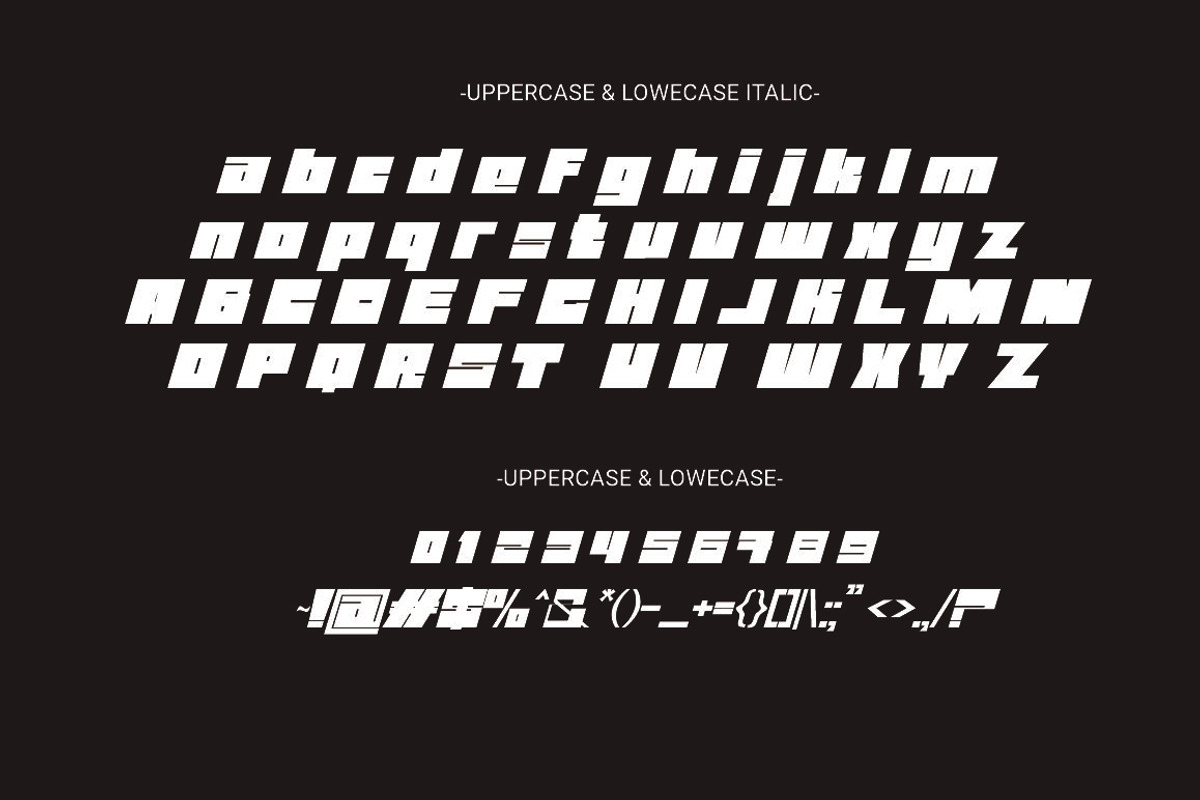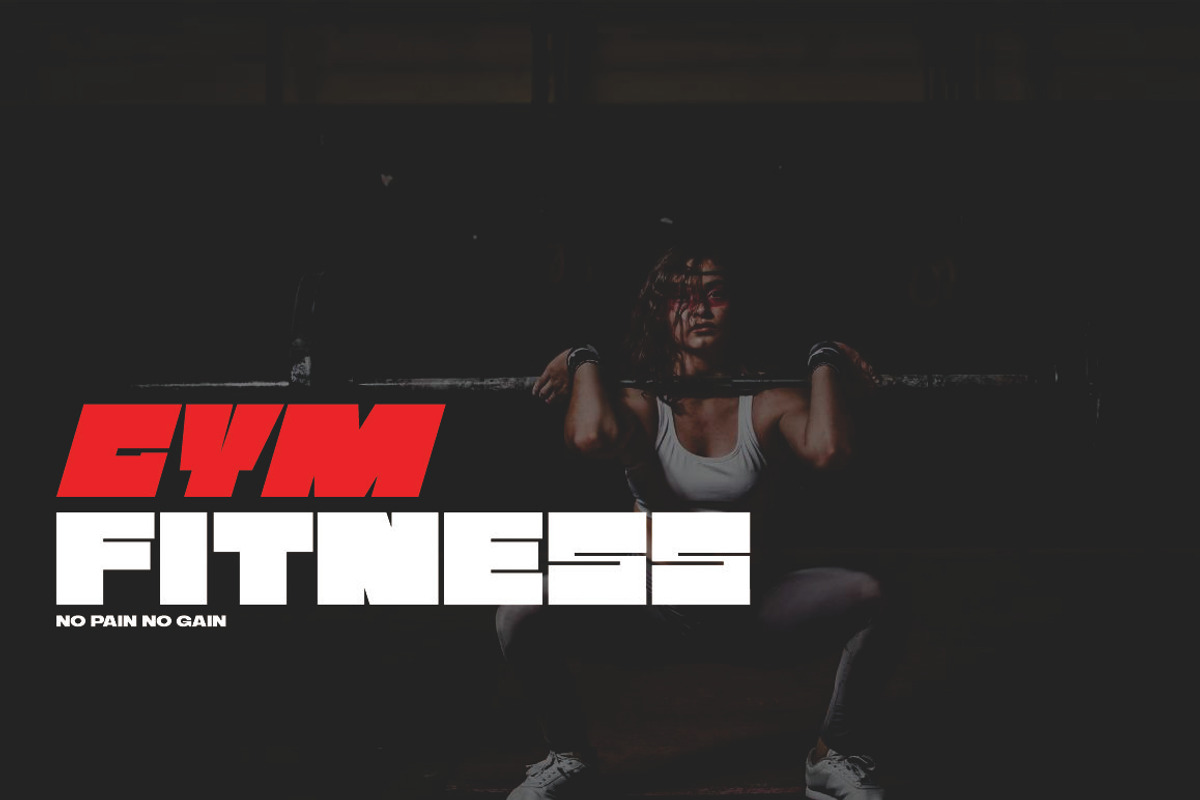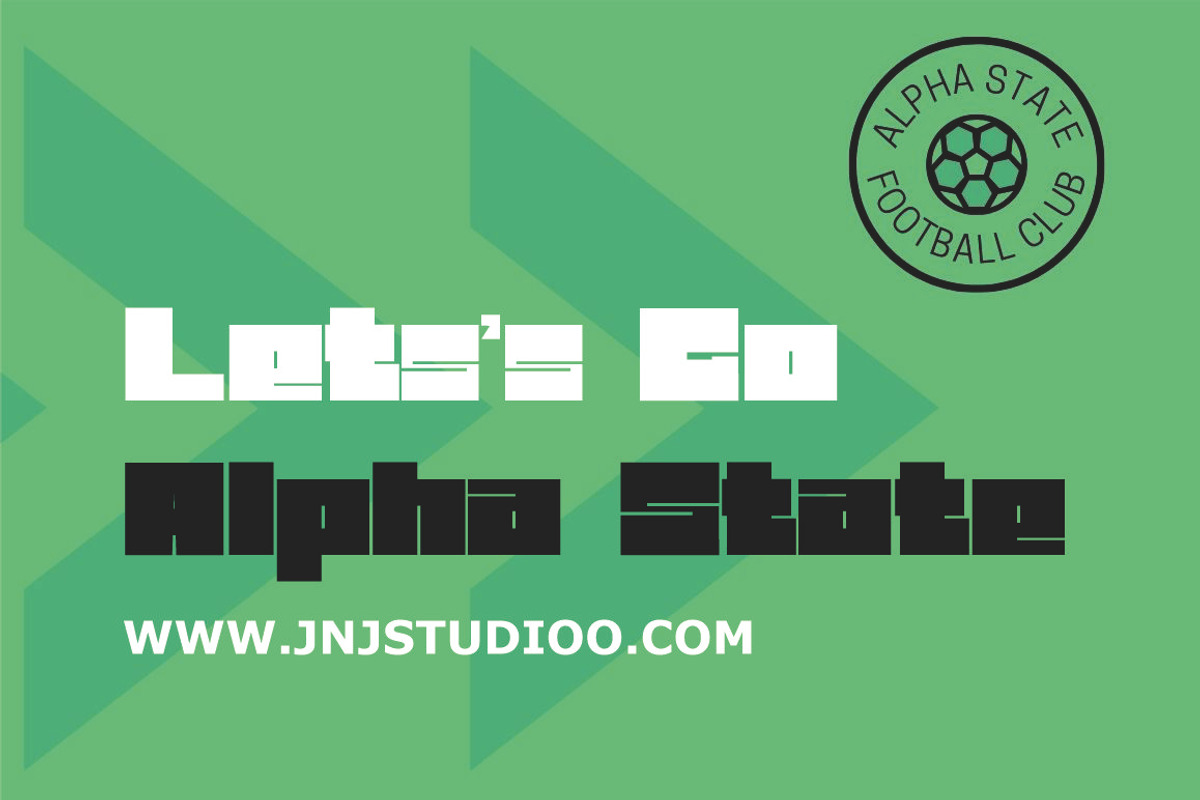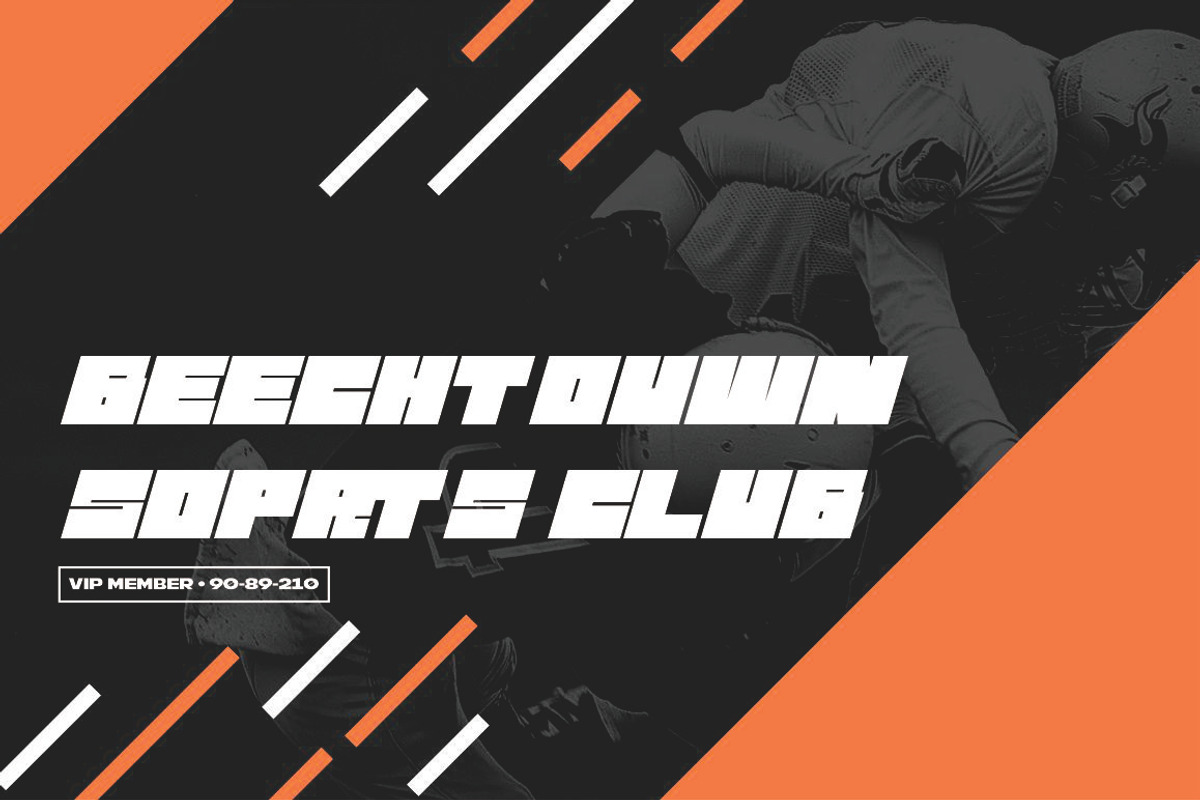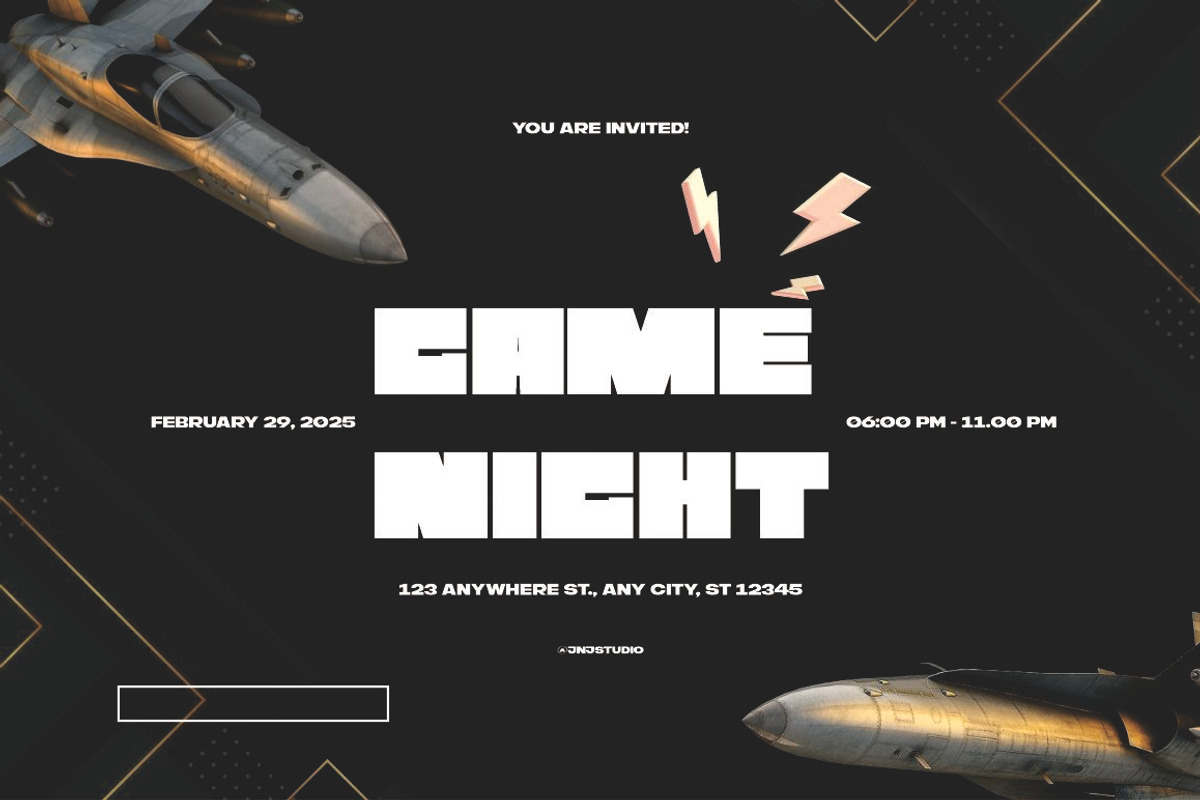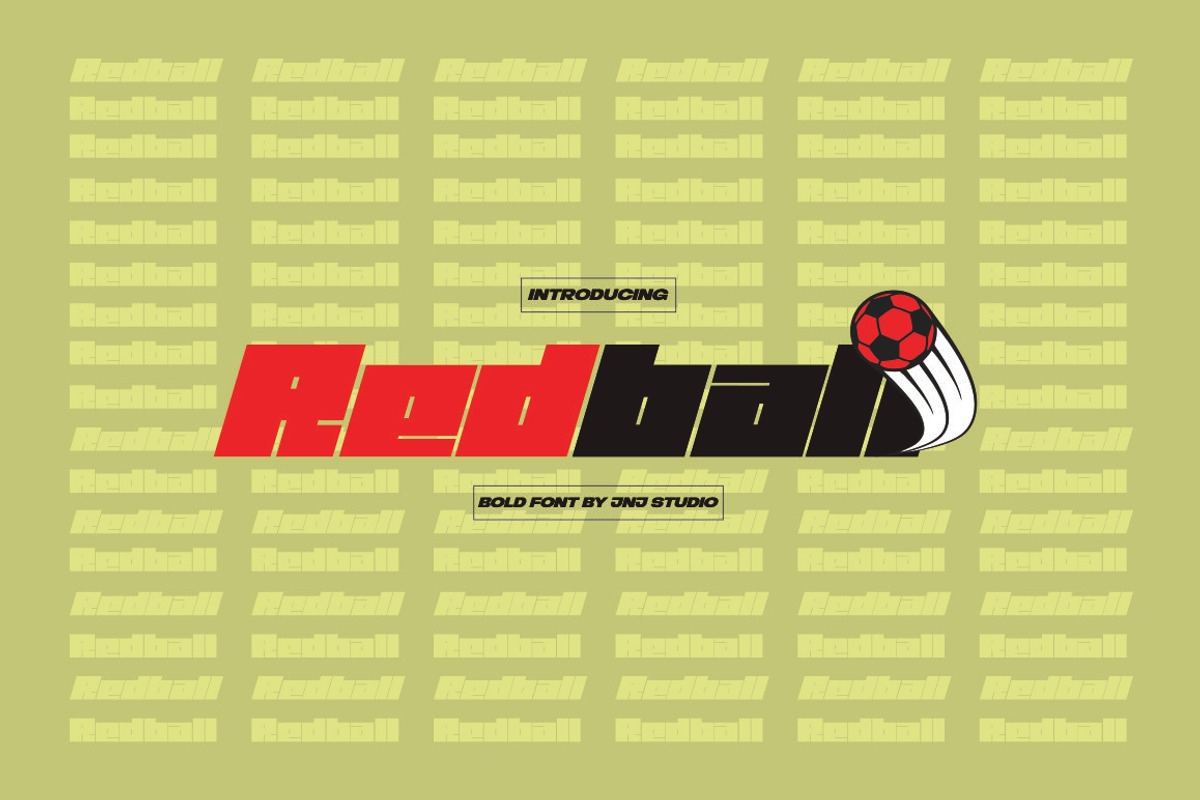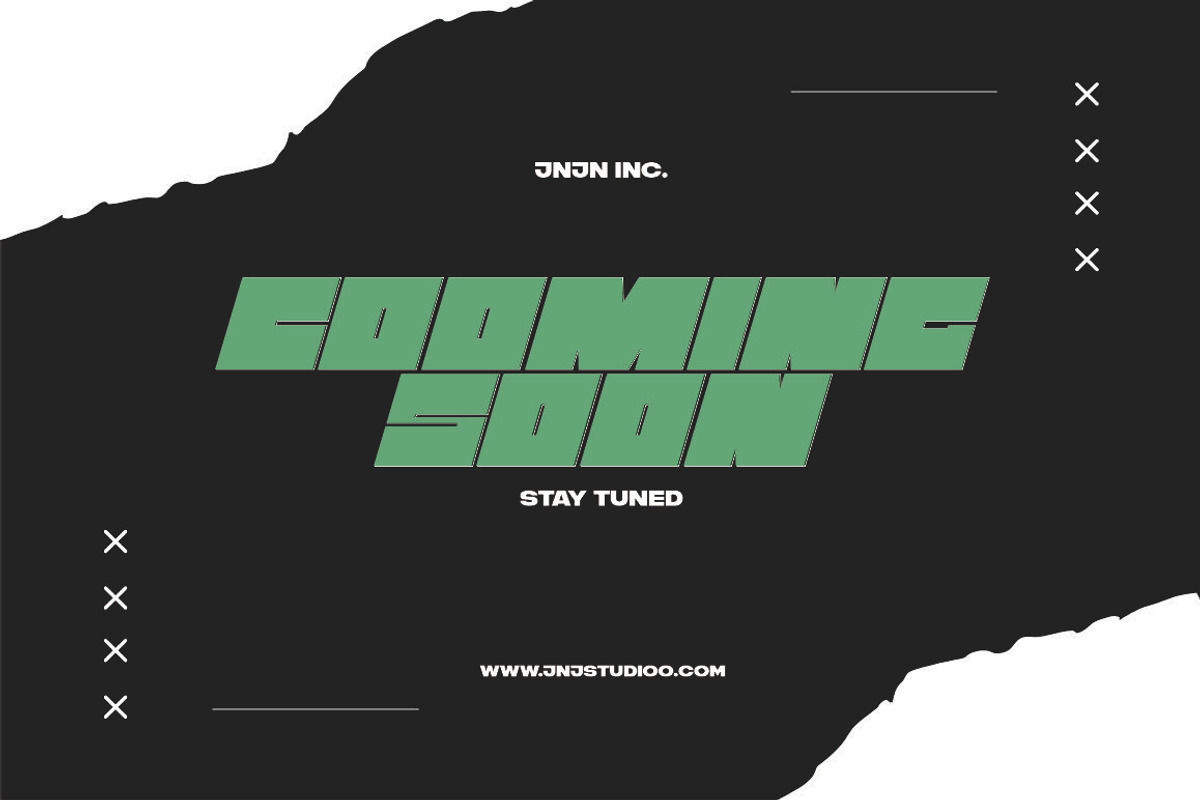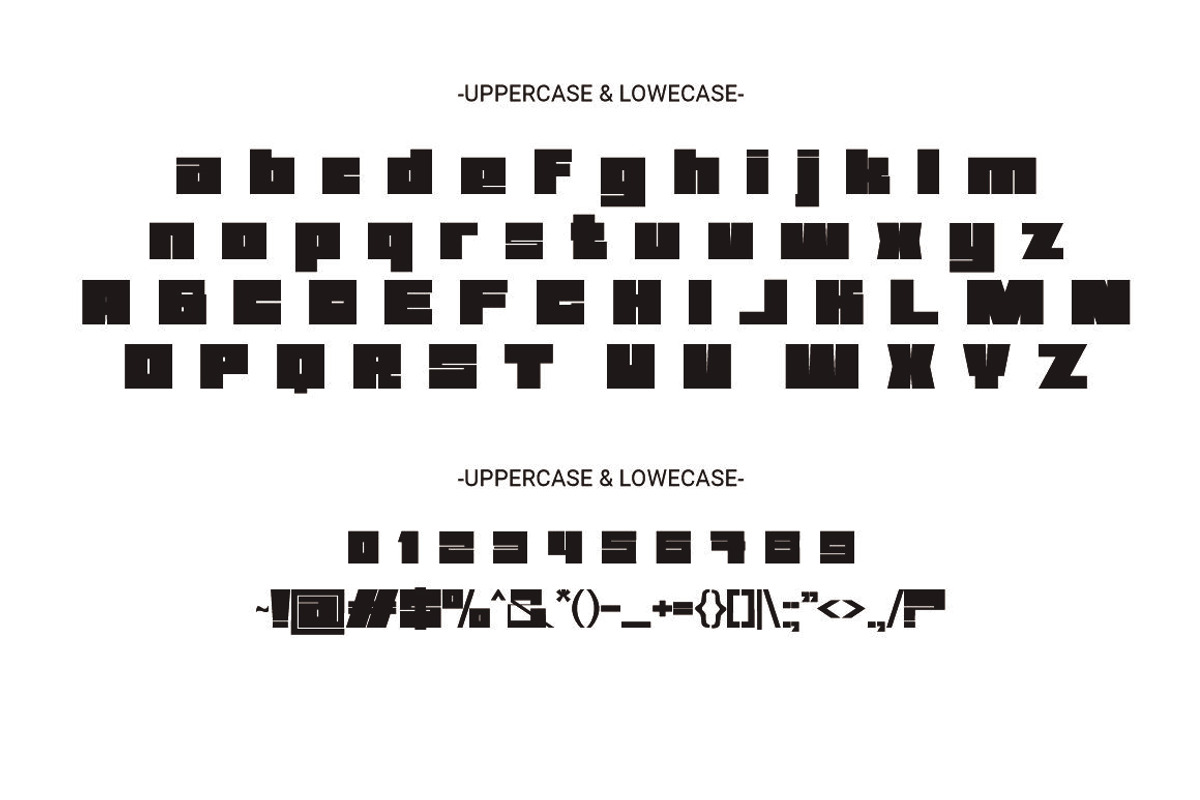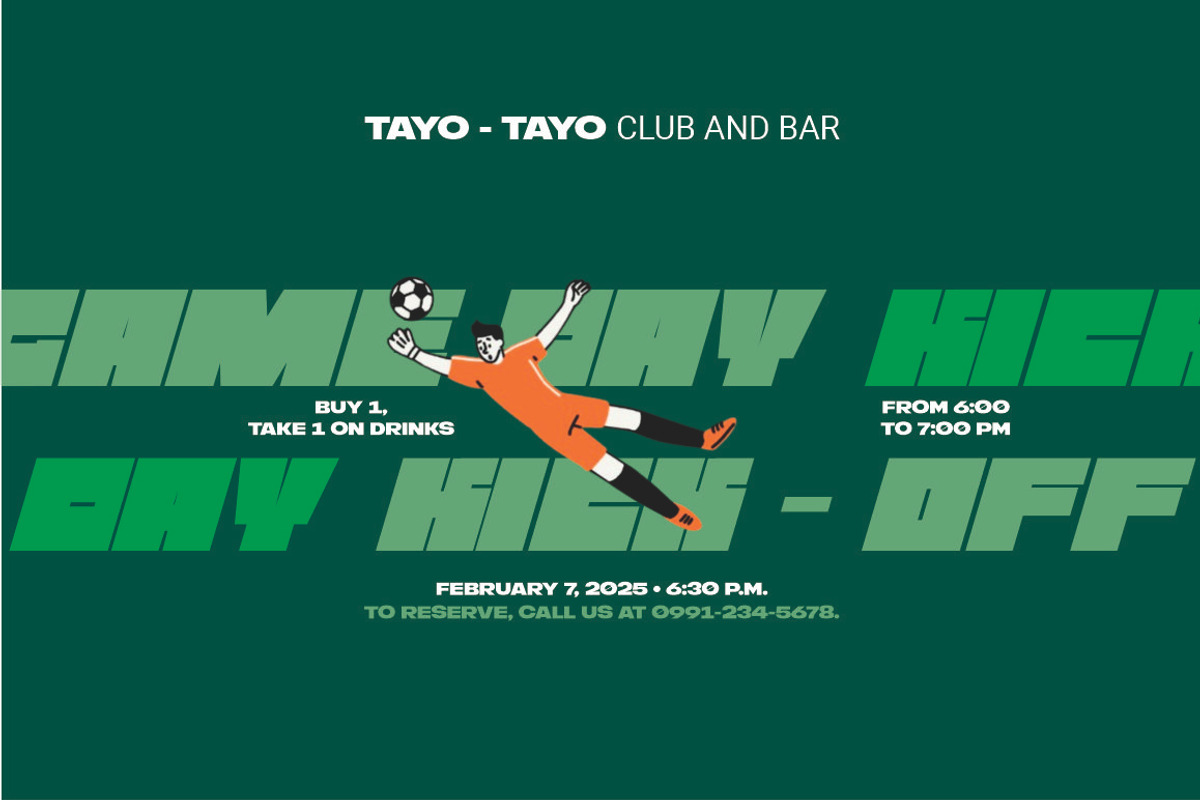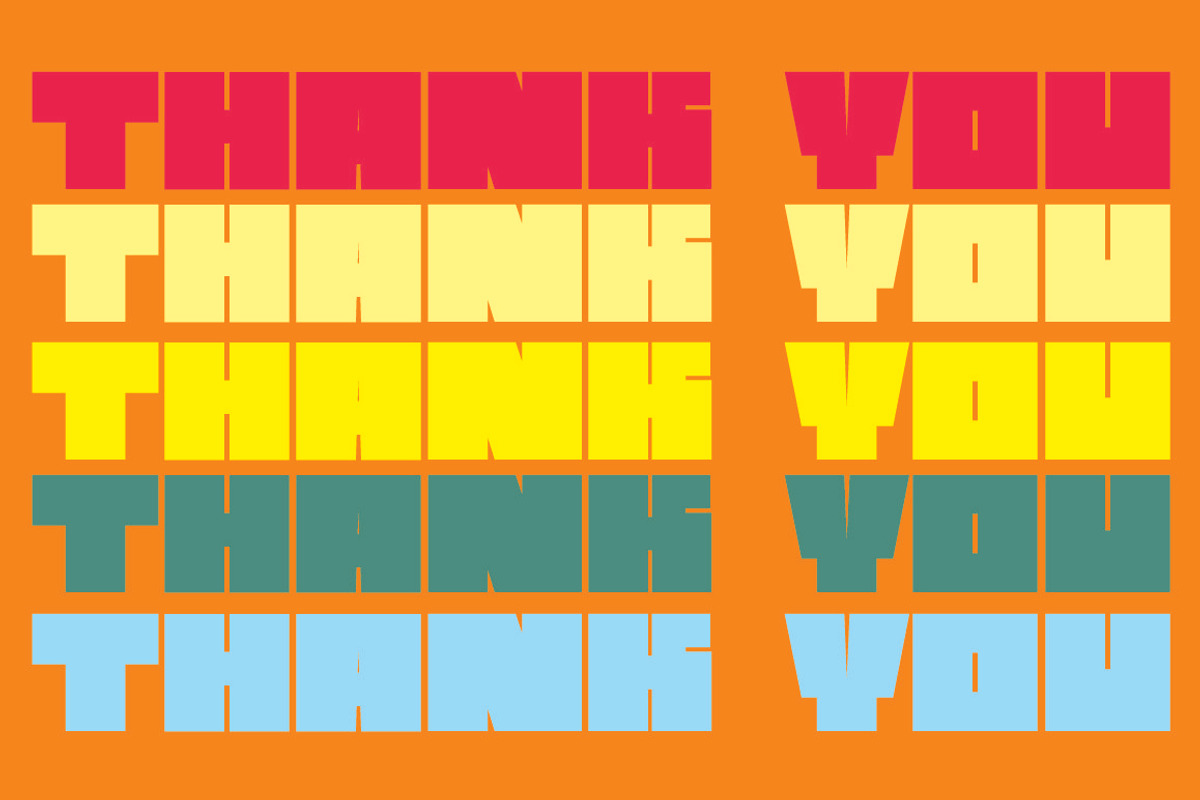
Redball Font Bold
Introducing "Redball" is a dynamic and modern bold font designed to make a powerful statement. With its clean lines and commanding presence, Redball is perfect for headlines, posters, logos, and branding projects.
The font exudes confidence and energy, making it an excellent choice for projects that demand attention. Its bold characters are carefully crafted to maintain readability while delivering a strong visual impact
- Regular & Italic Character